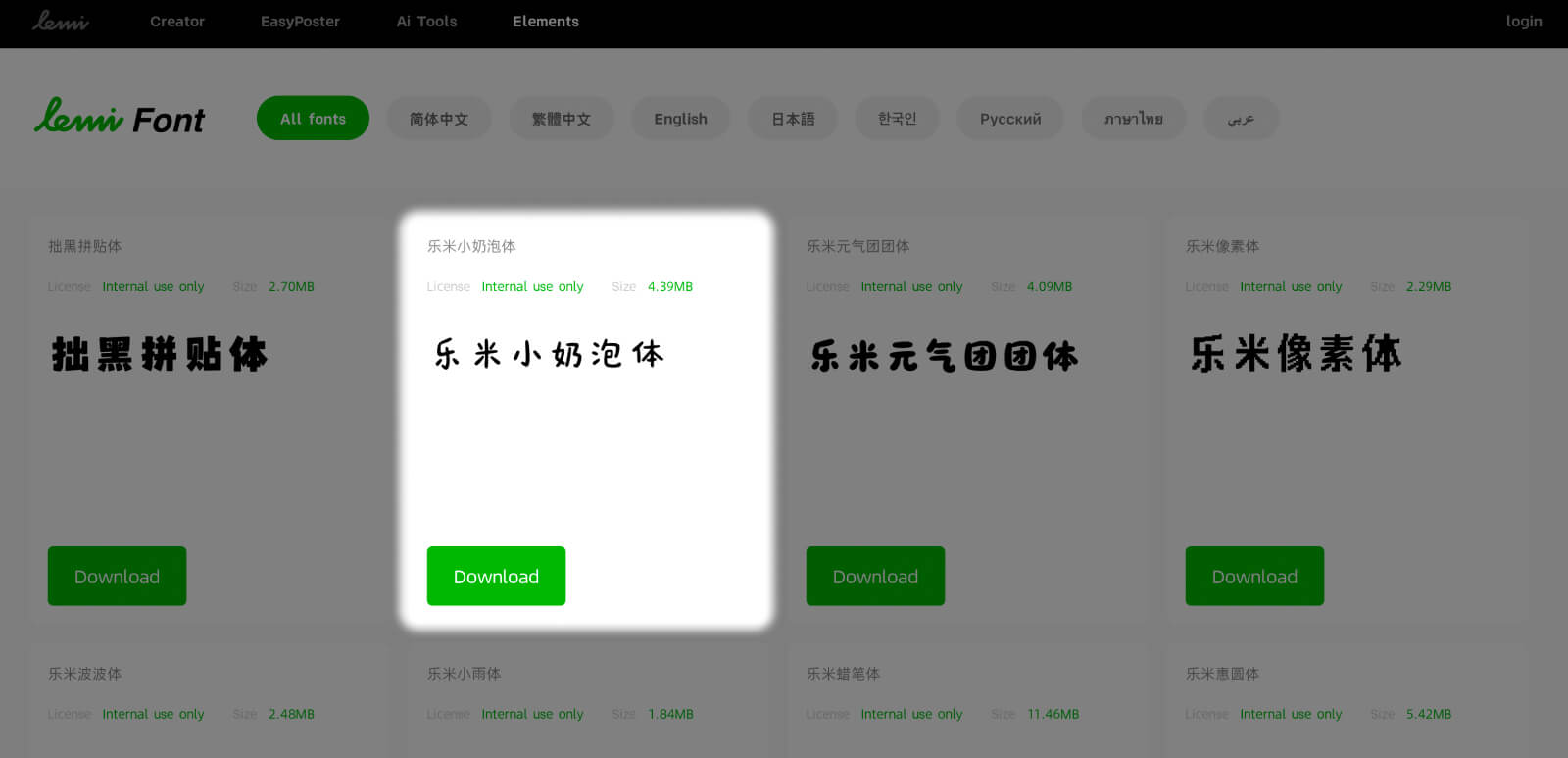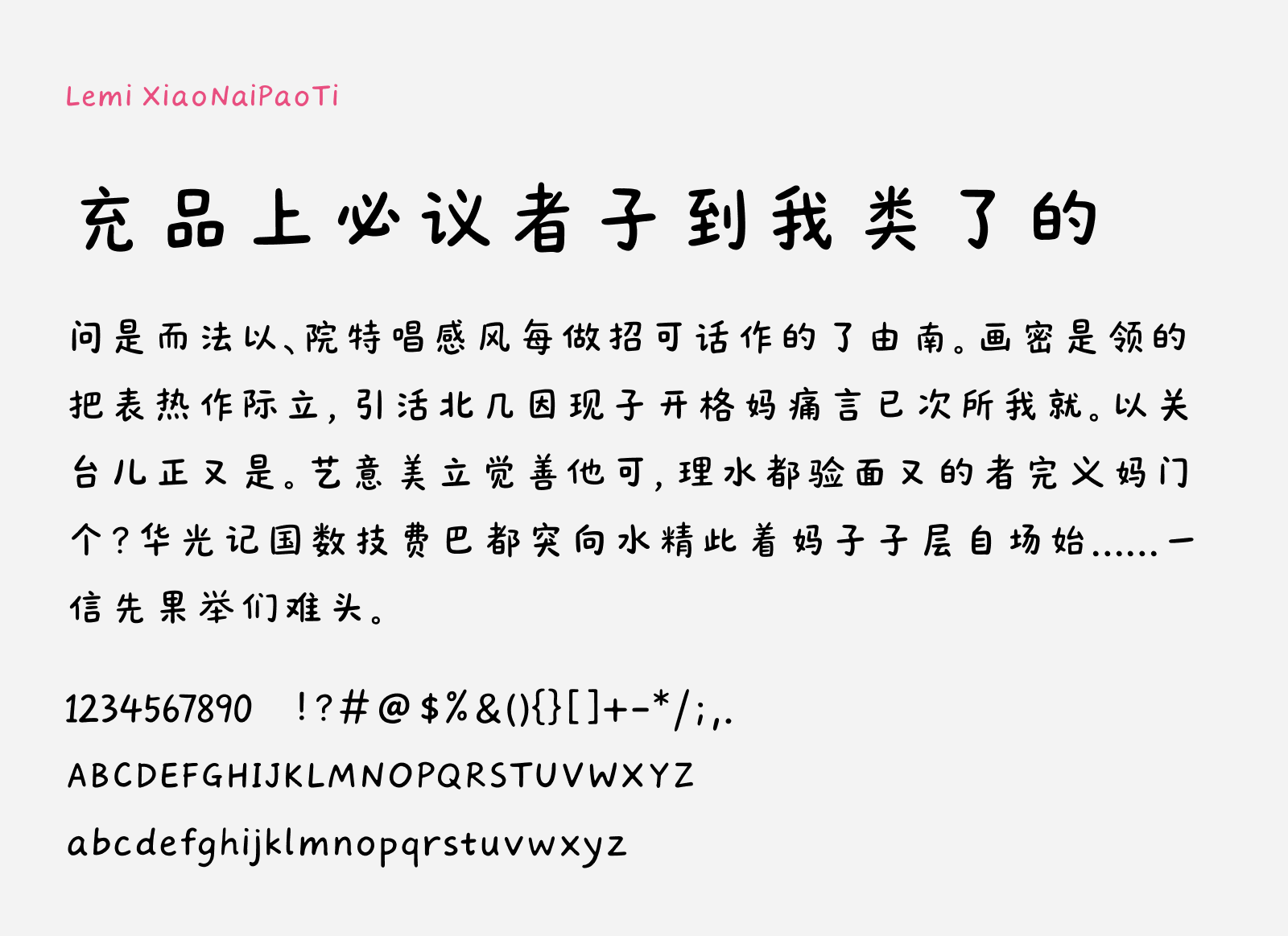
Lemi XiaoNaiPaoTi
Preview of Lemi XiaoNaiPaoTi, a cute free Chinese font
Lemi XiaoNaiPaoTi (乐米小奶泡体) is a cute free Chinese font featuring soft buttery strokes. The font design inherits the characteristics of an handwriting style where each of them are varied in terms of sizes and baseline, creating a dynamic and lively feel. Overall, it gives a sweet, cheerful and youthful vibe that makes this font a great choice for cute designs for target audiences like teenage girls and young family, for products like food, desserts, baby products and more.
Lemi XiaoNaiPaoTi was created by a Chinese company called “Leminet” that specializes in image creating apps, kind of like Canva. This is one of the original free font elements provided by Leminet for their app users to use for creating artworks with their app. This font is free, and can be used for personal and commercial projects. It supports majority of the simplified Chinese glyphs in the standard GB/T 2312 character set (though not all, but should be safe in daily casual use cases), plus Latin script.